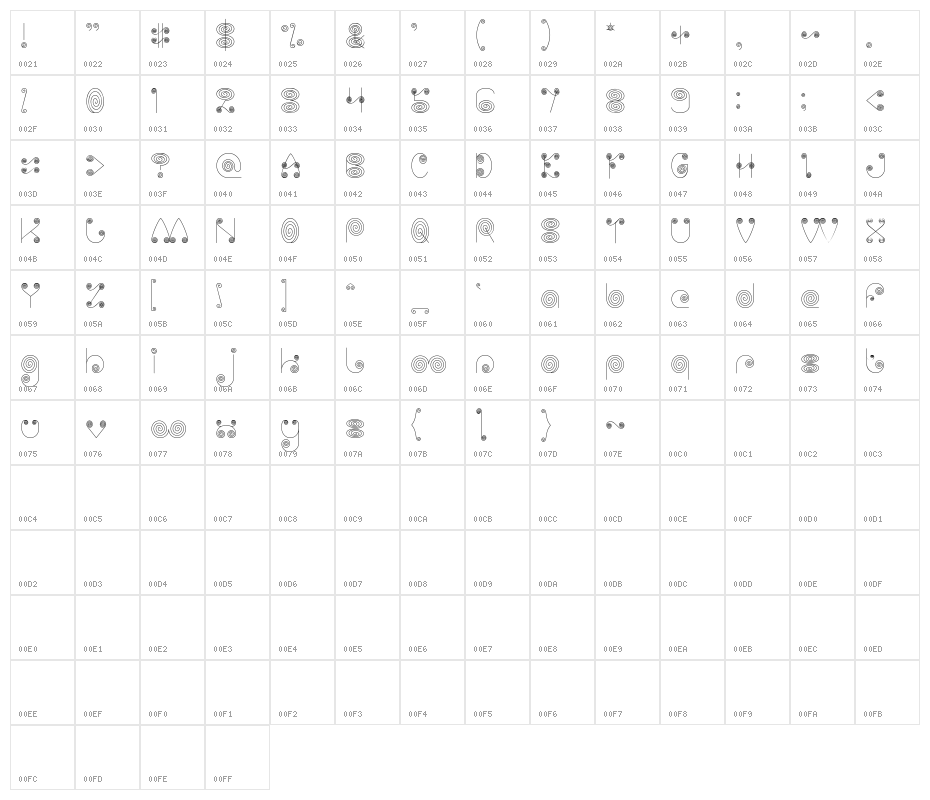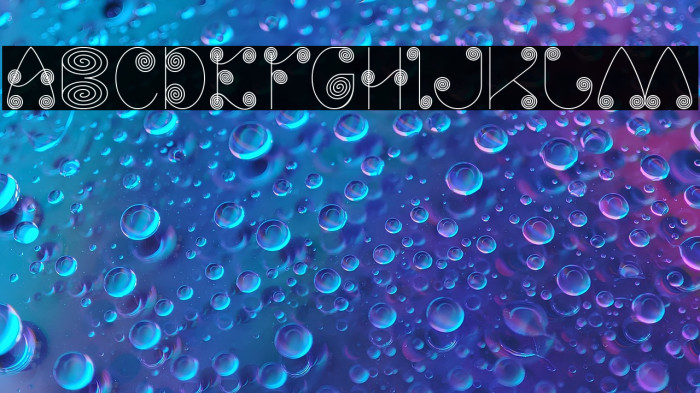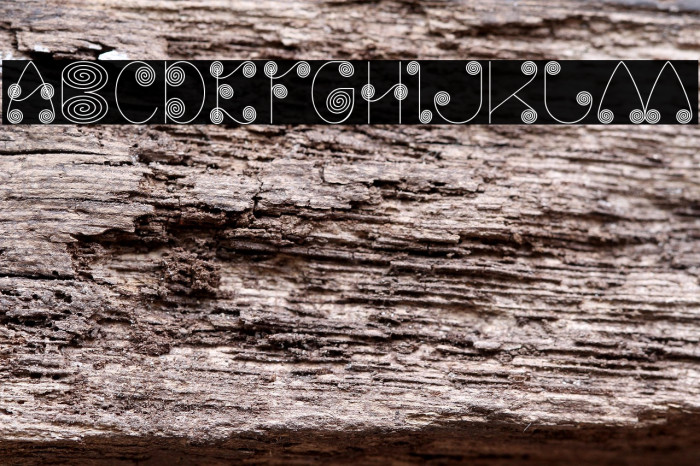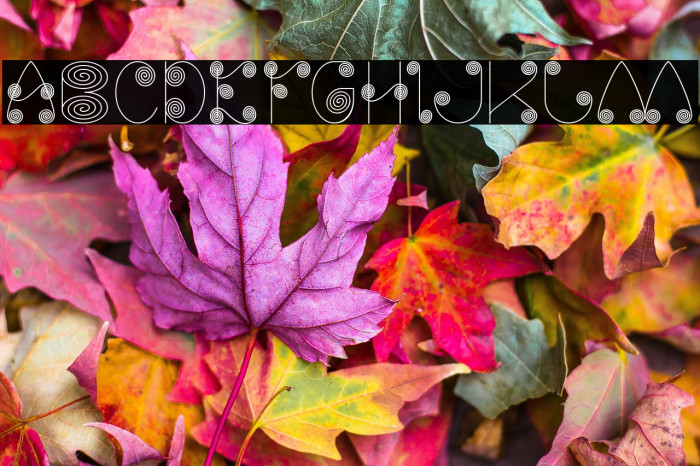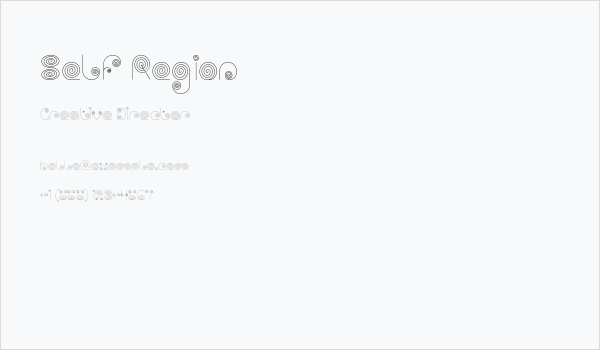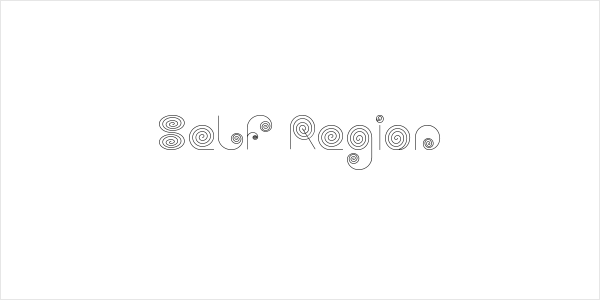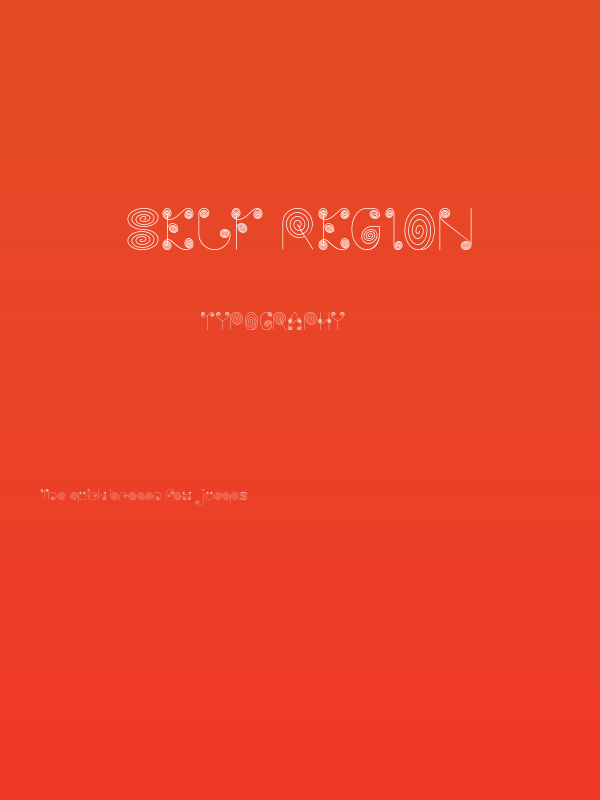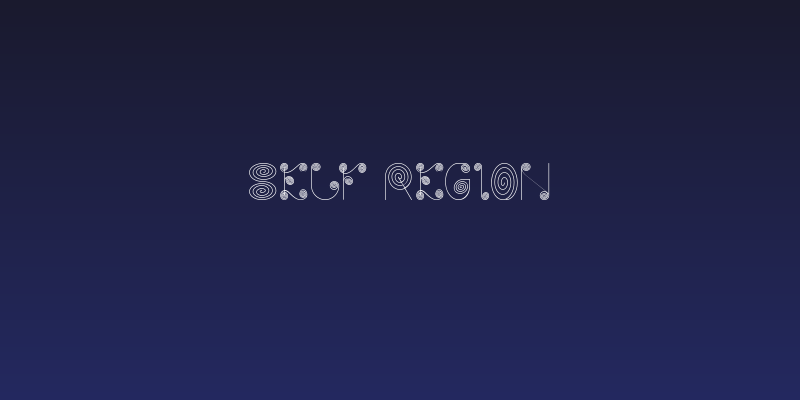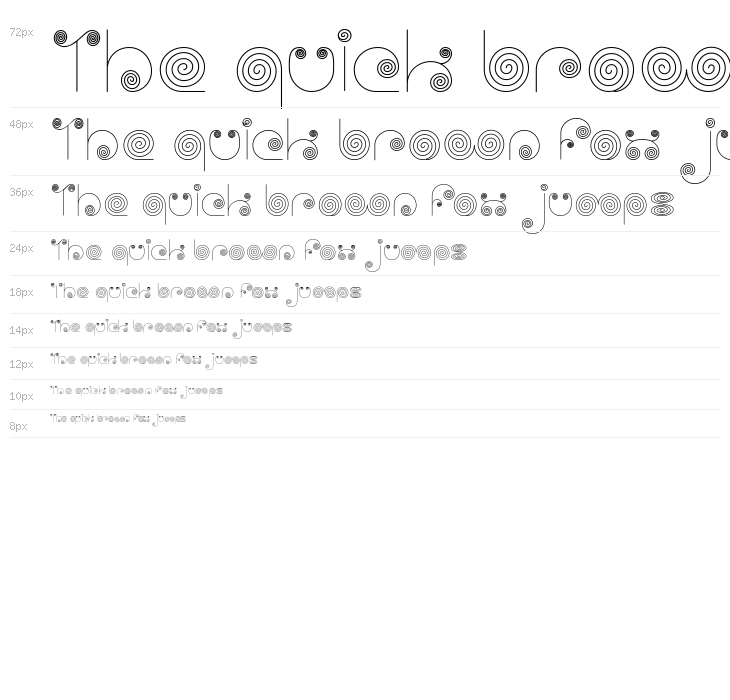
Self Region Font
Self Region Description
This font features a unique and whimsical design characterized by intricate spiral patterns integrated into each character. The letters are composed of thin lines that form elegant spirals, giving the font a playful and artistic appearance. The uppercase and lowercase letters maintain a consistent style, with each character showcasing a distinct spiral motif. Numbers and special characters follow the same design principle, ensuring a cohesive look across all elements. The font's decorative nature makes it ideal for creative projects that require a touch of flair and individuality.
| Use Case | Headlines, Logos, Artistic projects |
| Proposed Projects | Ideal for artistic projects, invitations, posters, and branding that require a unique and decorative touch. |